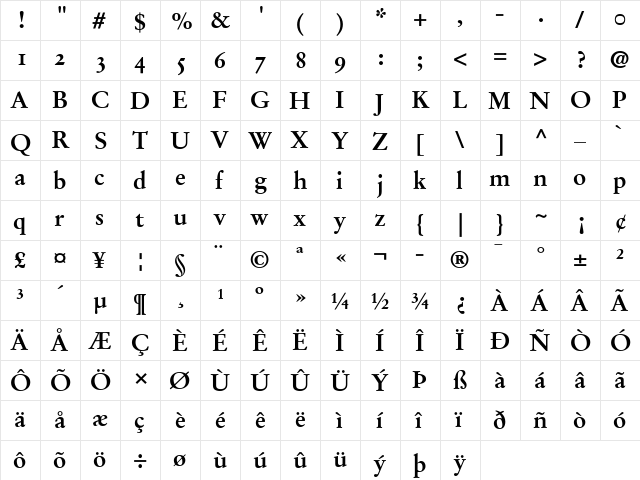
Stempel Garamond RomanOsF Bold
Design Context for Stempel Garamond RomanOsF Typeface
Stempel Garamond RomanOsF takes a measured approach to typography — its balanced proportions and neutral character make it a reliable workhorse for both digital and print work. Its bold stroke weight gives it real presence on the page.